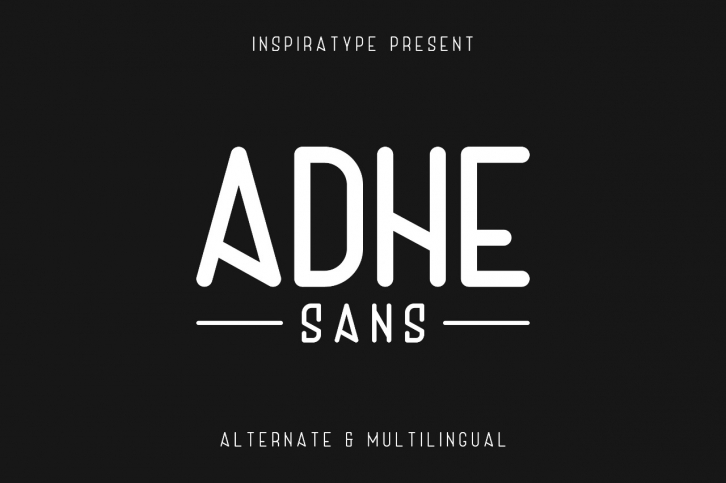
Adhe Sans is a great font that was designed by InspiraType. Imagine the amount of combinations you can create using this font! The archive is 19.20 MB and it was released on March 4, 2019. Adhe Sans looks beautiful on wedding invitations, greeting cards, logos, posters, labels, t-shirt designs, logos, business cards and is perfect for use in ink or watercolor works, fashion, magazines, packaging and food menus, children's books and more!